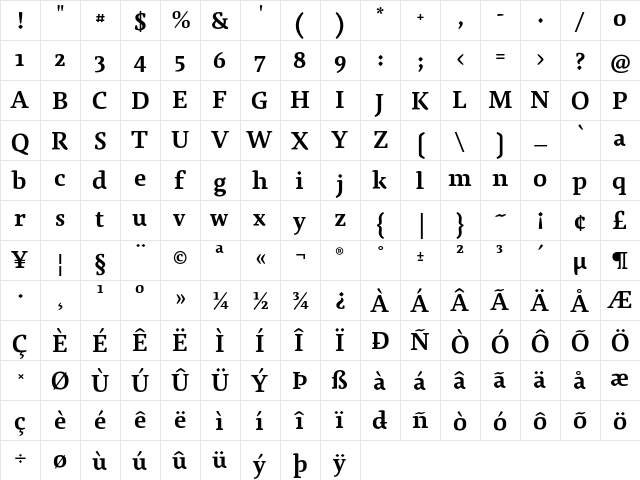
Agendatype Bold
| Foundry | FONTFARM: K.F. Oetzbach und Natascha Dell, Aachen, Germany |
| Designer | FONTFARM: K.F. Oetzbach und Natascha Dell, Aachen, Germany |
Design Context for Agendatype Typeface
Agendatype offers clean, dependable letterforms without strong stylistic allegiance, making it a practical choice for designers who need flexibility. The heavy weight commands attention and anchors typographic hierarchies.
Pro Tip: Use Agendatype in both headline and body roles to test its range before committing to a single application.